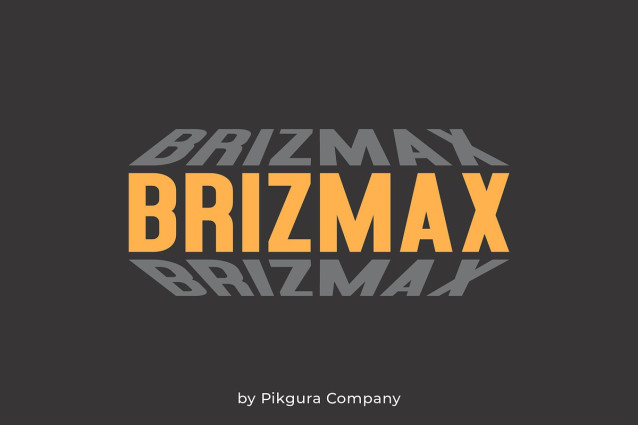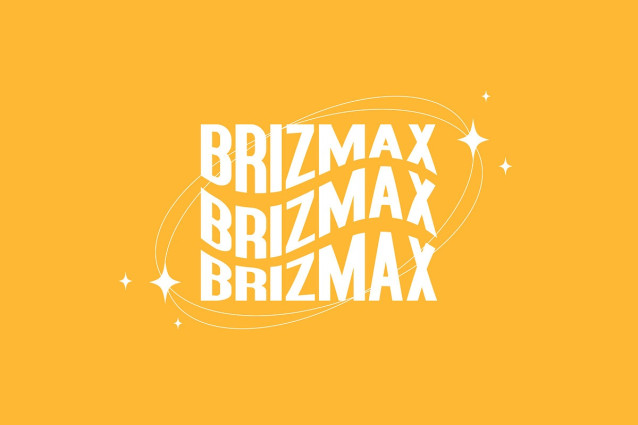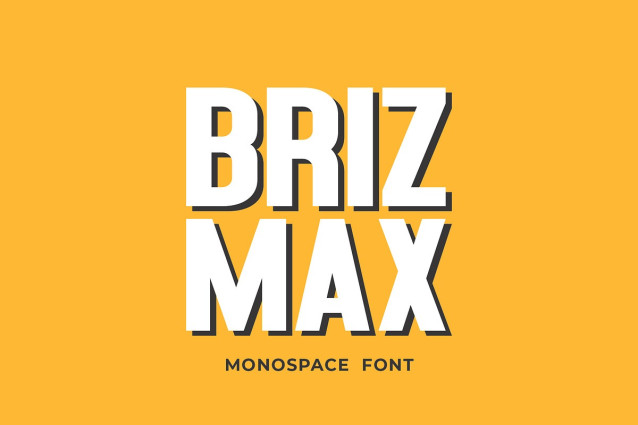
Brizmax Font
Brizmax Font, the bold and striking monospace font designed to make a statement! With its strong lines and clear structure, Brizmax is perfect for projects that require a modern and professional touch. This versatile font includes uppercase and lowercase letters, numbers, and basic punctuation, providing you with all the essentials for your design needs.